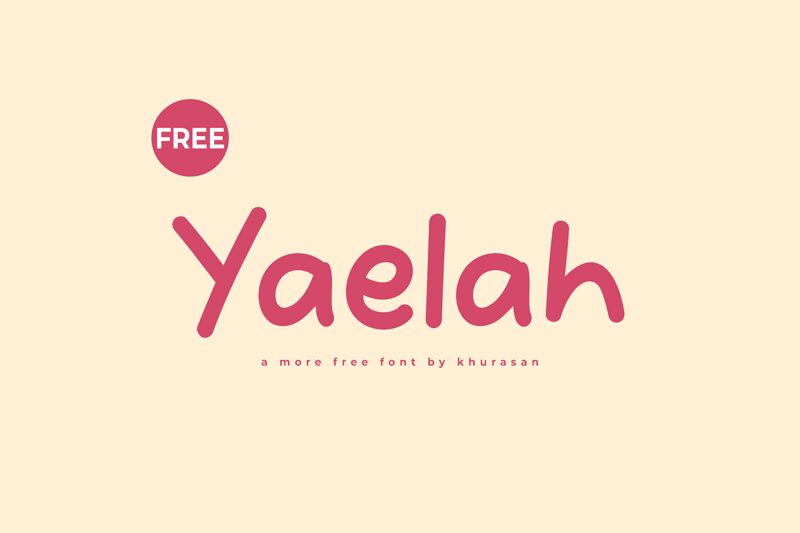
Yaelah
Yaelah font, designed by Khurasan, embodies a delightful comic style that radiates playfulness and creativity. Its whimsical curves and expressive forms invite a sense of joy and light-heartedness, making it perfect for designs that aim to engage and entertain.
The playful nature of Yaelah is heightened by its bold visual presence and inviting aesthetic. This font commands attention with its striking, expanded characters that dance across the page, effortlessly capturing the viewer’s eye.
Ideal for children's branding, event posters, or any project seeking to infuse personality into its design, Yaelah brings a lively spirit to anything it adorns. Whether in vibrant colors or classic monochromes, this display font promises to elevate your creative endeavors with its unique charm.